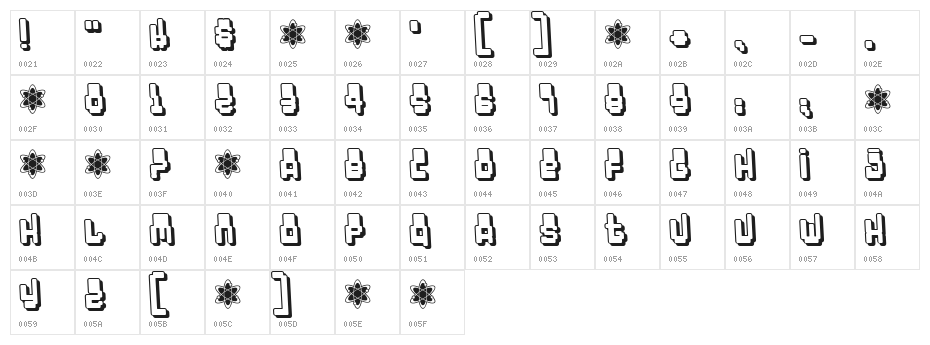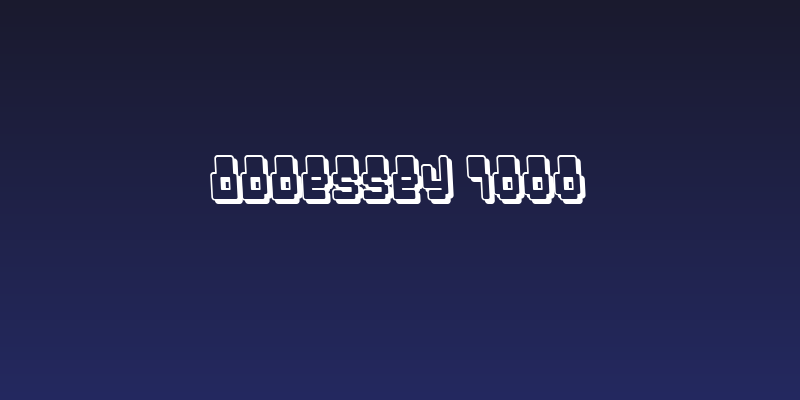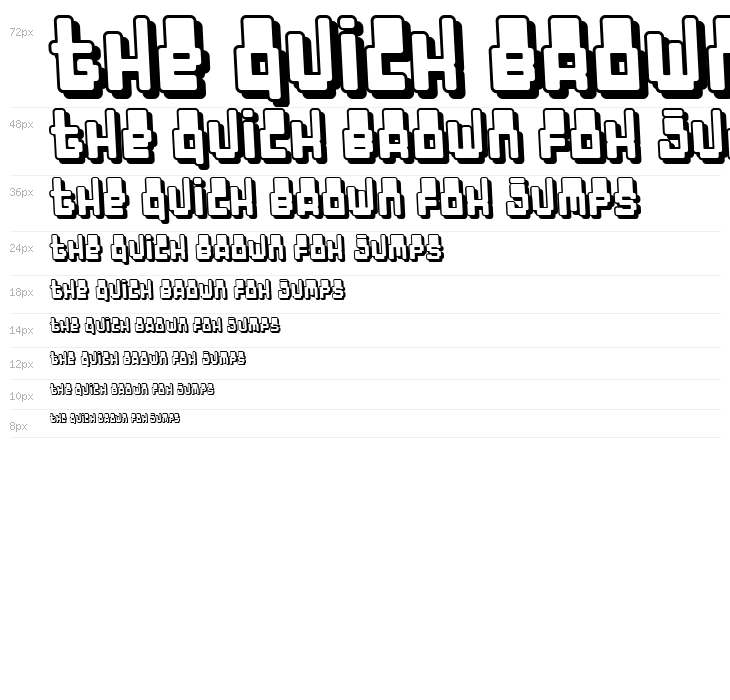
Oddessey 7000 Font
Oddessey 7000 Description
This font features a bold, geometric style with a distinct 3D effect, achieved through a thick outline and shadow. The characters are blocky and uniform, giving a futuristic and digital appearance. The uppercase and lowercase letters maintain a consistent height, enhancing the font's cohesive look. The numbers and special characters follow the same design principles, ensuring uniformity across all glyphs. This font's playful yet structured style makes it ideal for creative projects that require a modern and eye-catching typeface.
| Proposed Projects | Ideal for video game titles, tech-themed posters, digital art, and branding for tech startups. |